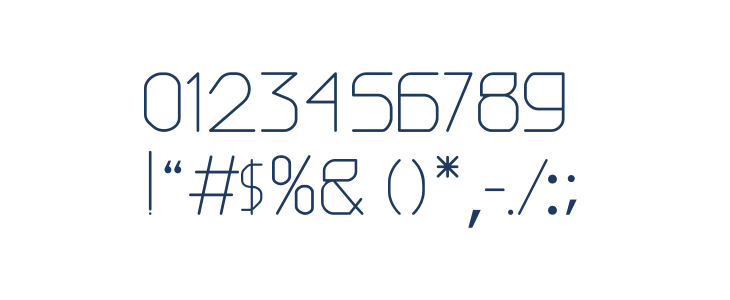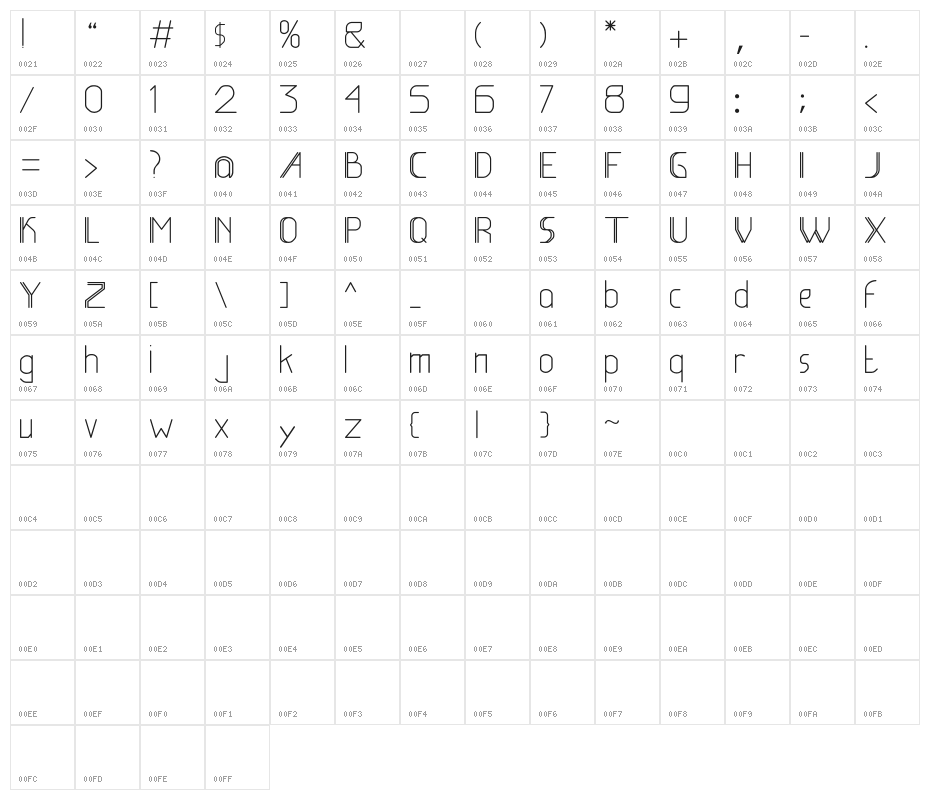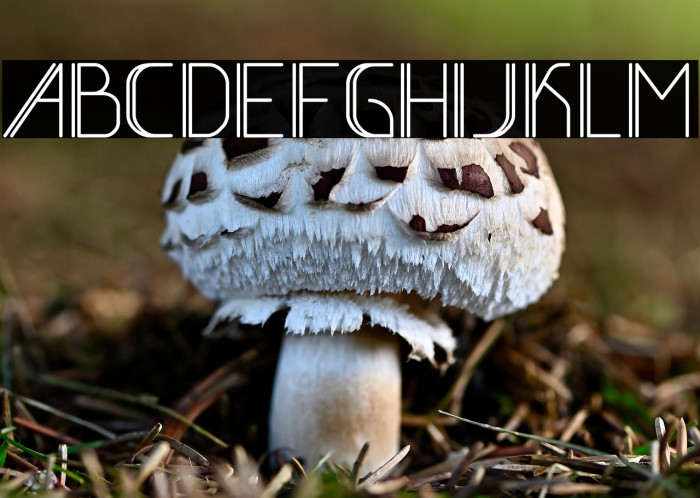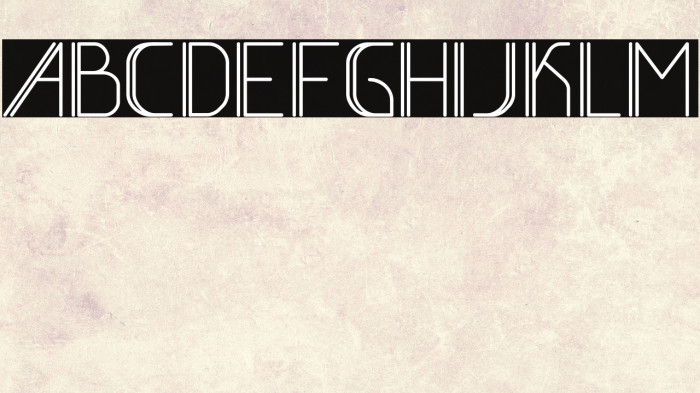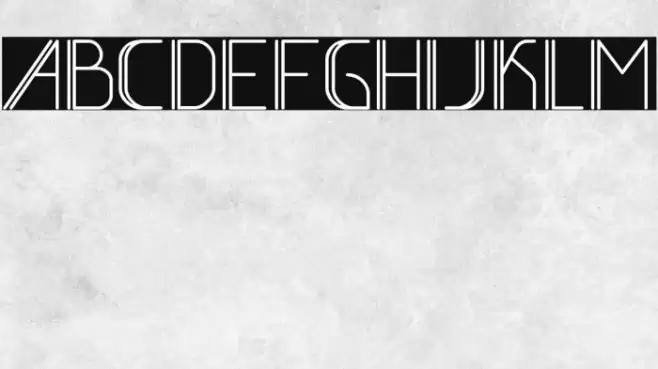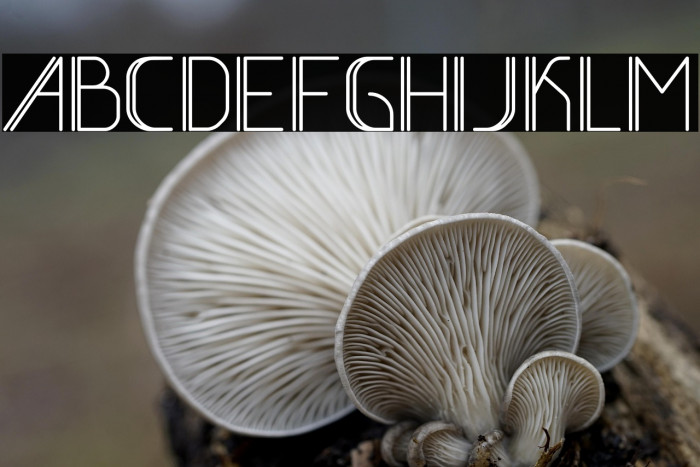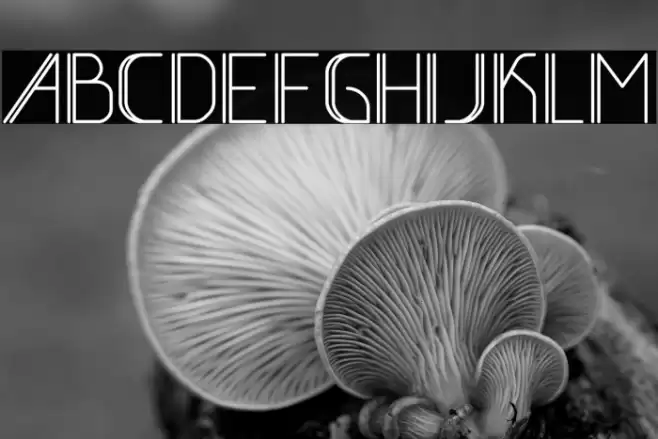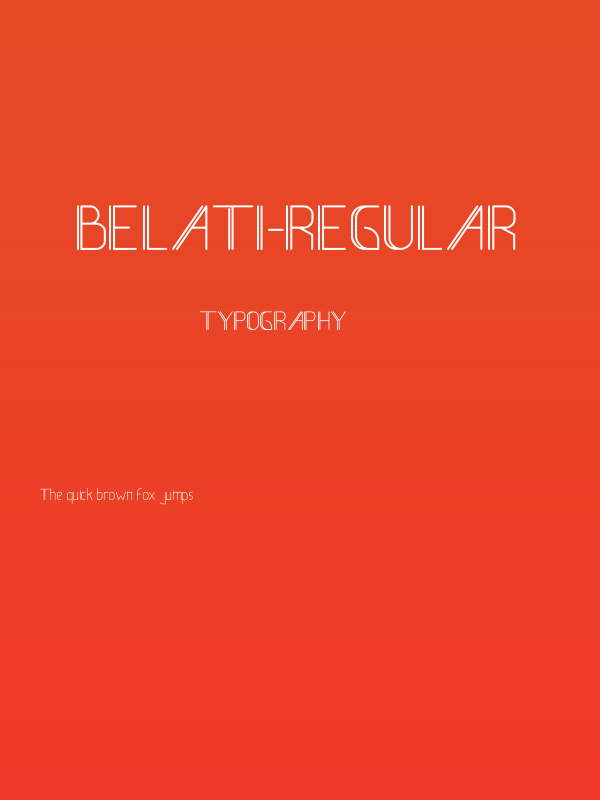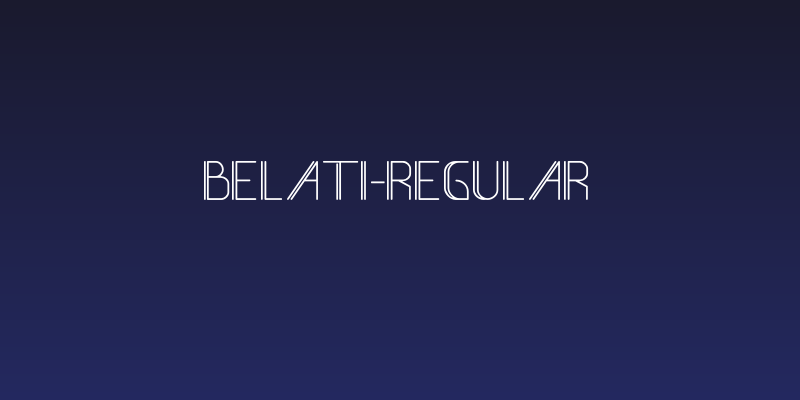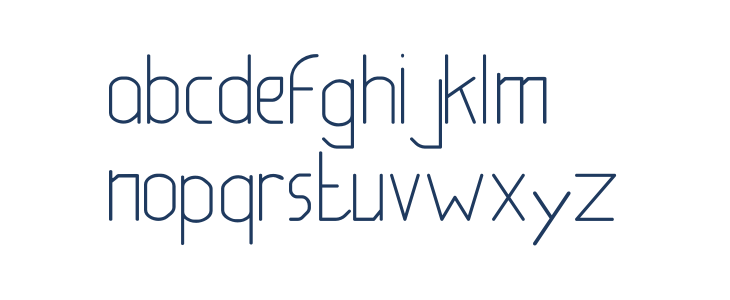
BeLati-Regular Font
BeLati-Regular Description
This font features a modern and geometric design with clean, straight lines and a minimalist aesthetic. The uppercase letters are characterized by their uniform height and consistent stroke width, giving them a structured and orderly appearance. The lowercase letters maintain this geometric style, with some characters featuring subtle curves that add a touch of elegance. The numerals are designed with the same precision, ensuring readability and consistency. Special characters are crafted with the same attention to detail, making them blend seamlessly with the rest of the font. Overall, this font exudes a contemporary and sophisticated vibe, suitable for a variety of design applications.